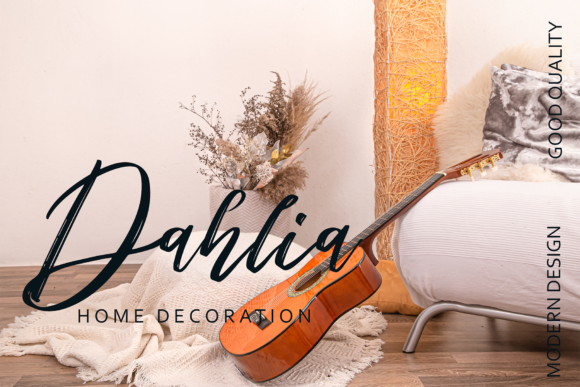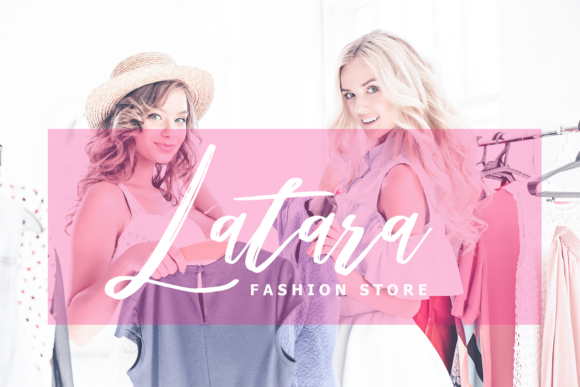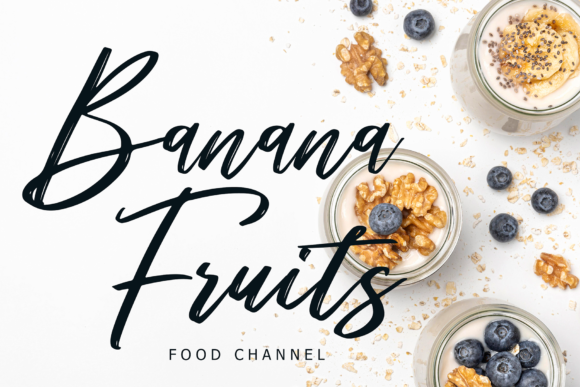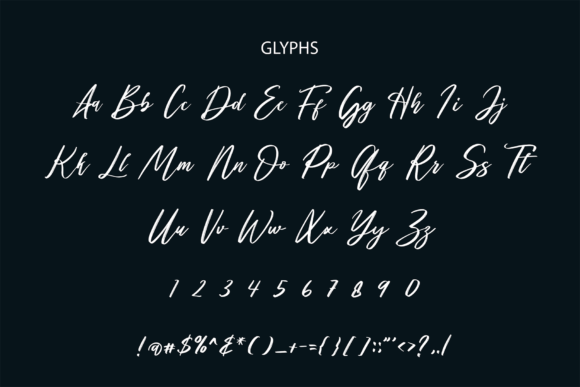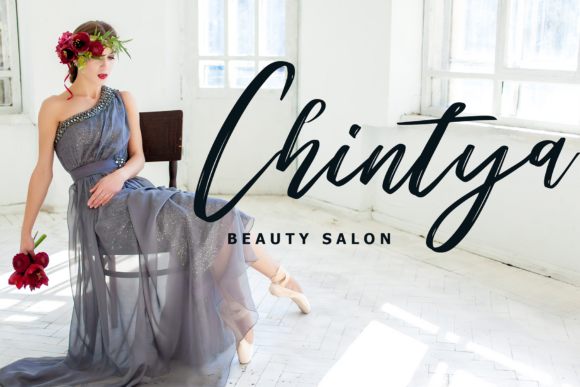
Discover the Magic of Ballerinas Font
Have you ever stared at a blank page, feeling the pressure to create something beautiful, yet struggling to find the right words? This is where the perfect font can make all the difference. It’s in these moments that we turn to the tools that inspire us, and for many designers, that tool is the Ballerinas Font.
This exquisite handwritten font is more than just a stylish addition to your projects – it’s a key to unlocking a world of creative possibilities. With its classy calligraphic influences and fresh, contemporary feel, the Ballerinas Font is sure to elevate your work to new heights.
Whether you’re a seasoned designer or just starting out, the Ballerinas Font is a valuable addition to your toolkit. Its versatility and sophistication make it the perfect choice for a wide range of projects, from elegant invitations to stylish branding.
Ballerinas Font Key Features
- Unique Characteristics: Ballerinas Font is known for its elegant and whimsical design, featuring flowing curves and ornate details that evoke a sense of romance and sophistication.
- Script and Calligraphy: This font features a beautiful script style, with connections between letters that create a sense of fluidity and movement, making it ideal for invitations, announcements, and other special occasions.
Ballerinas Font Review
I recently had the chance to work with the Ballerinas Font, and I must say it’s a beautiful addition to any design project. Here are some of the things that stood out to me:
- ✨ Elegant and refined feel: The Ballerinas Font is perfect for projects that require a touch of sophistication and glamour.
- ✨ Versatility: This font works well for both body text and headlines, making it a great choice for a wide range of design projects.
- ✨ Beautiful script: The Ballerinas Font features a stunning script style that’s perfect for adding a personal touch to your designs.
- ⚠️ Limited language support: Unfortunately, the Ballerinas Font only includes support for the Latin alphabet, which may limit its use for non-English projects.
- ⚠️ No bold or italic styles: While the Ballerinas Font is available in a range of weights, it doesn’t include bold or italic styles, which may limit its use in certain situations.
Overall, I was impressed with the Ballerinas Font and would definitely consider using it again in the future. While it may have some limitations, its elegant and refined feel makes it a great choice for a wide range of design projects.
Tips for Getting the Most Out of Ballerinas Font
Use Ballerinas Font for creative projects that require a touch of elegance and sophistication.
Pair it with other cursive or script fonts for a beautiful and eye-catching combination.
Experiment with different font sizes and styles to add visual interest to your design.
Ballerinas Font is perfect for:
Birth announcements and baby shower invitations
Wedding menus and programs
Any design project that requires a touch of romance and whimsy
Alternatives to Ballerinas Font
Great Vibes is a modern, elegant script font that works well for titles and headings. It has a flowing, handwritten feel that is reminiscent of the Ballerinas Font, but with a more refined and sophisticated look.
Comparison to Ballerinas Font: While both fonts have a similar feel, Great Vibes is more polished and suitable for formal designs, whereas Ballerinas Font has a more playful and whimsical touch.